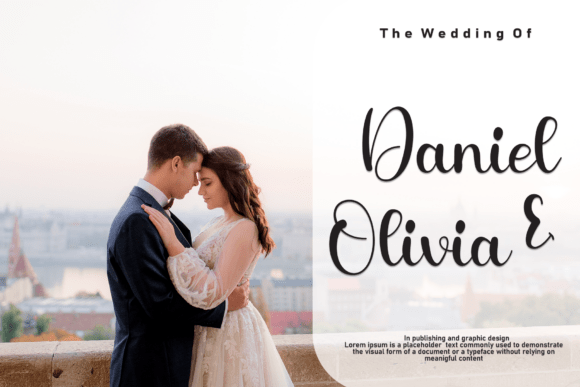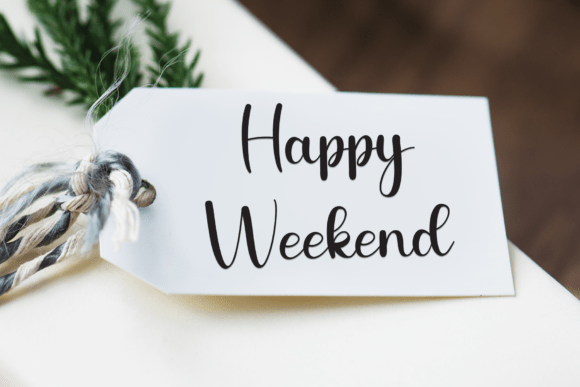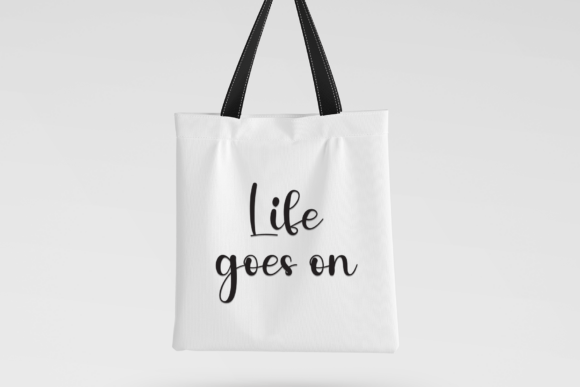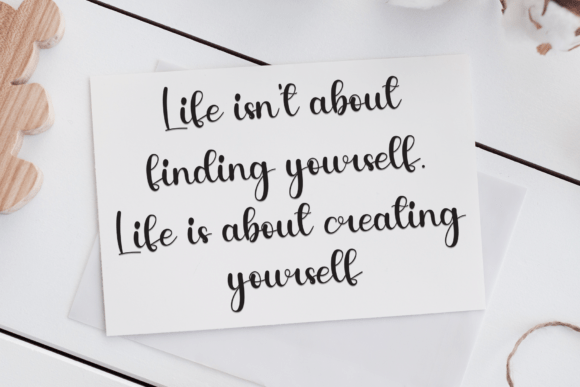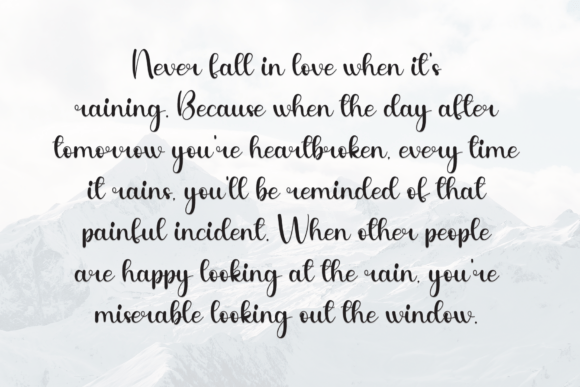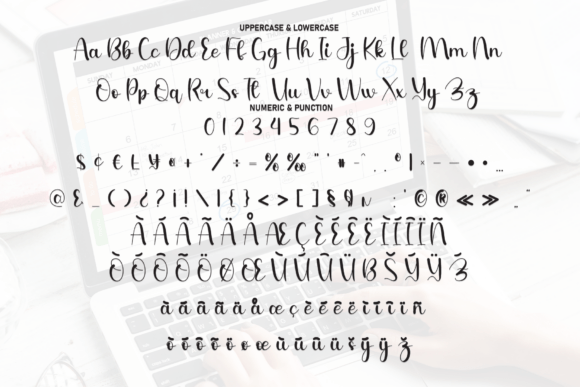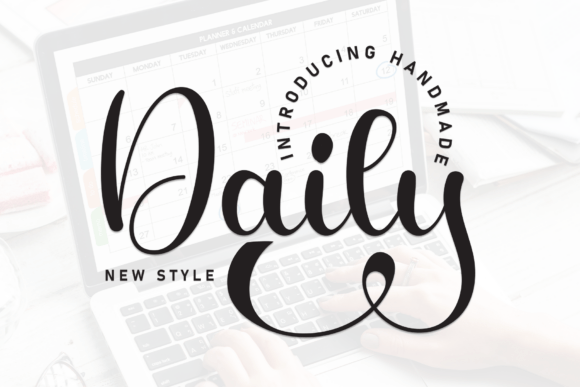
Introducing Daily Font: Elevate Your Designs with Fresh Elegance
Are you on the lookout for a font that embodies the essence of renewal and sophistication? Look no further than Daily Font, a stunning handwritten script font that is sure to transform your designs. With its delicate charm and flowing strokes, Daily Font is the perfect addition to any project that requires a touch of elegance and whimsy.
The Characteristics of Daily Font
Daily Font is a stylish handwritten script font that boasts a range of characteristics that set it apart from other typefaces. Its most notable feature is its flowing strokes and graceful curves, which evoke a sense of movement and fluidity. This font is designed to radiate fresh elegance, making it perfect for designs that require a touch of sophistication and refinement.
Perfect for Invitations, Branding, and Seasonal Designs
Daily Font is a versatile typeface that can be used in a variety of design applications. Its delicate charm and uplifting feel make it perfect for:
- Invitations: Whether you’re designing a wedding invitation, birthday party invite, or baby shower announcement, Daily Font adds a touch of elegance and whimsy to your design.
- Branding: Daily Font is perfect for brands that want to convey a sense of sophistication and refinement. Use it to create a logo, packaging design, or marketing materials that stand out from the crowd.
- Seasonal Designs: Daily Font is ideal for seasonal designs, such as holiday cards, Easter egg designs, or summer-themed posters. Its fresh and elegant feel is sure to capture the spirit of any season.
Adding a Soft, Personal Touch to Your Designs
One of the standout features of Daily Font is its ability to add a soft, personal touch to any design. Its handwritten script style gives your designs a warm and inviting feel, making them perfect for:
- Stationery: Use Daily Font to create beautiful stationery, such as letterheads, journals, or greeting cards.
- Signage: Daily Font is perfect for signage, such as menus, flyers, or posters. Its elegant feel is sure to grab attention and leave a lasting impression.
- Digital Designs: Daily Font can be used in digital designs, such as social media graphics, blog headers, or website designs. Its versatility and elegance make it a great addition to any digital project.
Why Choose Daily Font?
So why choose Daily Font over other typefaces? Here are just a few reasons:
- Unique and Elegant: Daily Font is a one-of-a-kind typeface that is sure to elevate your designs. Its elegant feel and flowing strokes make it perfect for designs that require a touch of sophistication.
- Versatile: Daily Font can be used in a variety of design applications, from invitations to branding to seasonal designs.
- Easy to Read: Despite its elegant feel, Daily Font is easy to read and understand, making it perfect for designs that require a clear and concise message.
Tips for Using Daily Font
Here are a few tips for using Daily Font in your designs:
- Pair it with Other Fonts: Daily Font pairs well with other fonts, such as sans-serif fonts or serif fonts. Experiment with different font combinations to find the perfect look for your design.
- Use it in Headlines: Daily Font is perfect for headlines and titles. Use it to grab attention and add a touch of elegance to your design.
- Experiment with Colors: Daily Font looks great in a range of colors, from soft pastels to bold brights. Experiment with different colors to find the perfect look for your design.
In conclusion, Daily Font is a stunning handwritten script font that is sure to elevate your designs. Its flowing strokes and graceful curves evoke a sense of renewal and sophistication, making it perfect for invitations, branding, and seasonal designs. With its delicate charm and uplifting feel, Daily Font adds a soft, personal touch to any project. So why not give it a try and see the difference it can make in your designs?